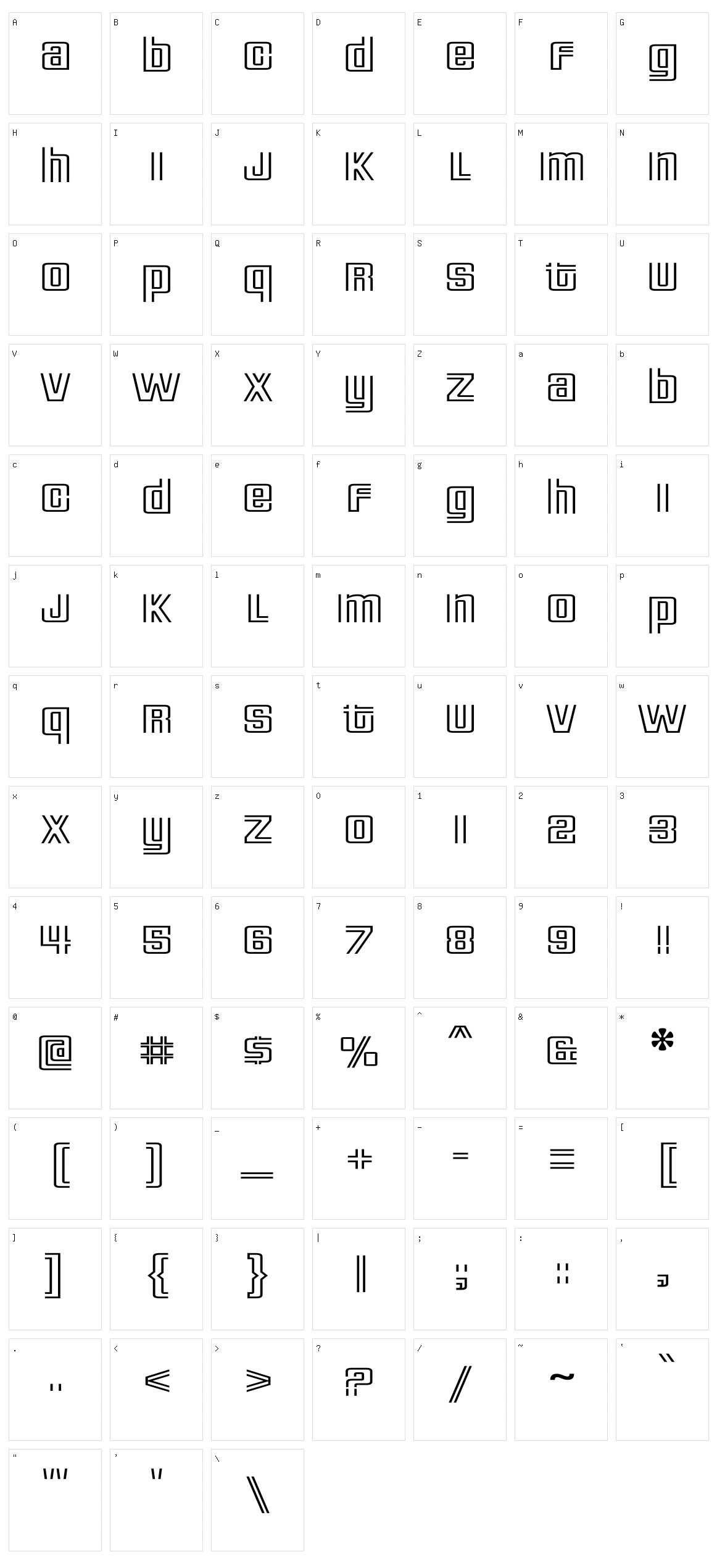
The free font Deluxe Ducks is carefully designed by Typodermic Fonts, showcasing a thoughtful balance of creativity and usability and falls under the Groovy font style. When you download the ZIP file, it contains only 67.67 KB of font files, making it lightweight and quick to download. Please review the license details below to understand permitted usage and distribution rights. If license information is not available, we recommend using this font for personal projects only or contacting the author directly for commercial usage permissions.